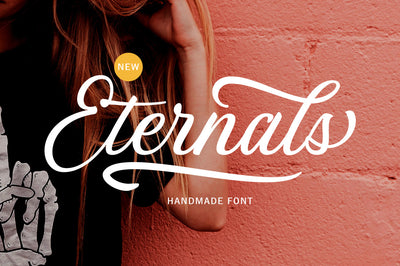
Eternals - Modern Calligraphy Font
Introducing Eternals – Modern Calligraphy Font With Handwriting Characteristics.
A blend of elegance and sophistication, this font gives a very distinct note to your printed cards, invitations and promotions. Plus, it's fantastic for packaging and clothing, as well as for any project that calls for charm and style.
Multilingual & Ligature Support
Complete set of Punctuation and Numbers